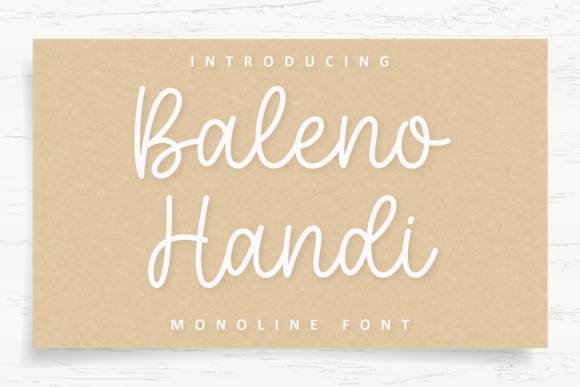
Embark on a typographic adventure with Baleno Handi Font, a captivating script that exudes grace and elegance. Masterfully crafted by AV Type, this font is a visual masterpiece that will transform your creative projects into stunning works of art.
Step into the realm of the Wild West with Baleno Handi, the perfect font for capturing the untamed spirit of the frontier. Its delicate strokes and flowing curves evoke the essence of the Old West, transporting you back to a time of cowboys, sheriffs, and outlaws.
Let your imagination run wild as you craft posters that ooze with Western charm. Picture dusty saloons, tumbleweeds rolling across deserted streets, and lone riders galloping across the vast plains. With Baleno Handi, the possibilities are endless.
Whether you're a seasoned designer or just starting out, Baleno Handi is incredibly easy to use. Its balanced and varied design ensures effortless integration into any project, making it the perfect choice for a wide range of applications.
Design stunning logos that command attention, create eye-catching social media posts that captivate your audience, or craft elegant invitations and greeting cards that leave a lasting impression. The versatility of Baleno Handi is truly remarkable.